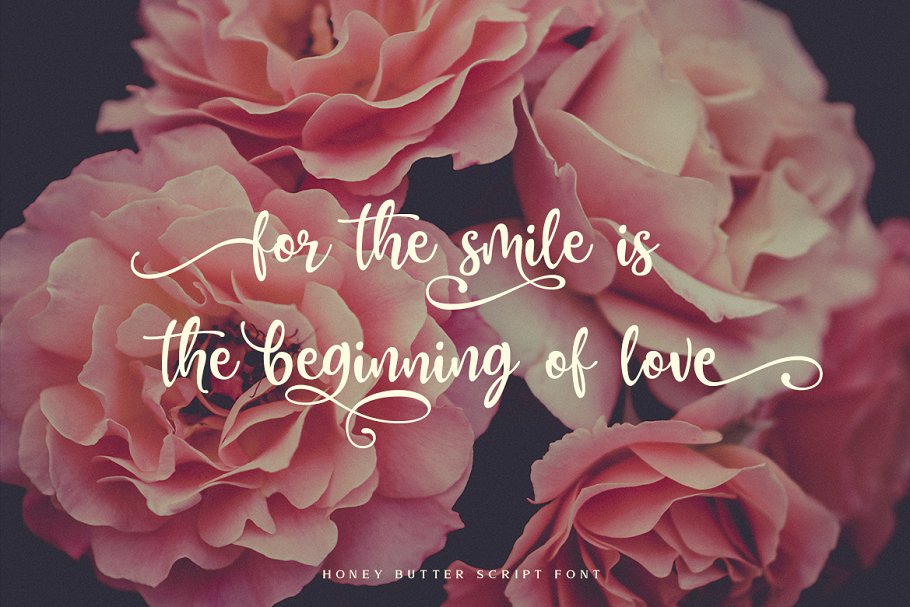
About the Honey Butter Font
This is our newest product called Honey Butter , This is a trio font that can be paired each other, Honey Butter comes with *Honey Butter script that contain more than 600 alternate character, Honey Butter sans, and Honey Butter serif , Honey Butter is really great font for logo, blog/web headline, clothing, invitation, poster, cafe/resto sign, and many others
We also make 260 vectors for this font, so you can create many many designs for your projects, HIGHLIGHTS:Honey Butter Script Clean with over 600 alternate (OTF/TTF) – Alternate contains stylistic, swash, stylistic set ss01 – ss13 , and ligatures Honey Butter Sans (OTF/TTF) Honey Butter Serif (OTF/TTF) 260 Vector (Ai and EPS illustrator/ PNG individual files/and 4 TTF files)49 Editable logos (Ai and EPS illustrator) Character Map for Honey Butter Script Alternates (PDF) Multilingual support – spread your message globally AÀÁÂÃÄÅCÇDÐEÈÉÊËIÌÍÎÏNÑOØÒÓÔÕÖUÙÜÚÛWYÝŸÆßÞþ Software Requirement : Fonts and Vectors : You can use any software that fonts and PNG can be used on it Editable Logos : use illustrator CC for eps, use illustrator CS4 CS5 CS6 for ai NOTE: if you need highresolution of cliparts, please use EPS or TTF files, PNG files are fine but it will blurry if you upscale it